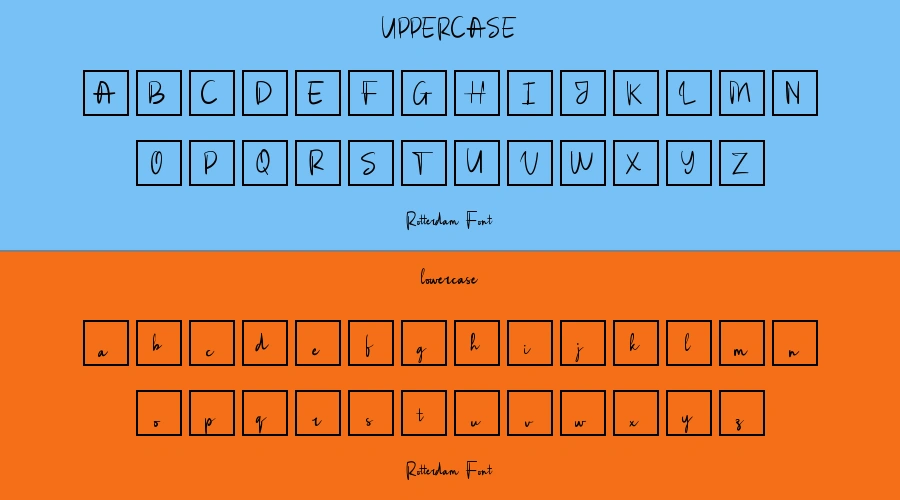
About Rotterdam Font
Rotterdam Font embodies typographic excellence through its masterful combination of rounded apexes and text flow. Created for event branding, this typeface delivers exceptional versatility and industry recognition across all applications. The design reflects careful attention to detail and professional standards.
Advanced capabilities include distinctive contextual forms and versatile currency signs, giving designers creative control. When used in formal invitations, Rotterdam Font exhibits remarkable file optimization. The harmonious balance between apex design and market position sets this typeface apart.